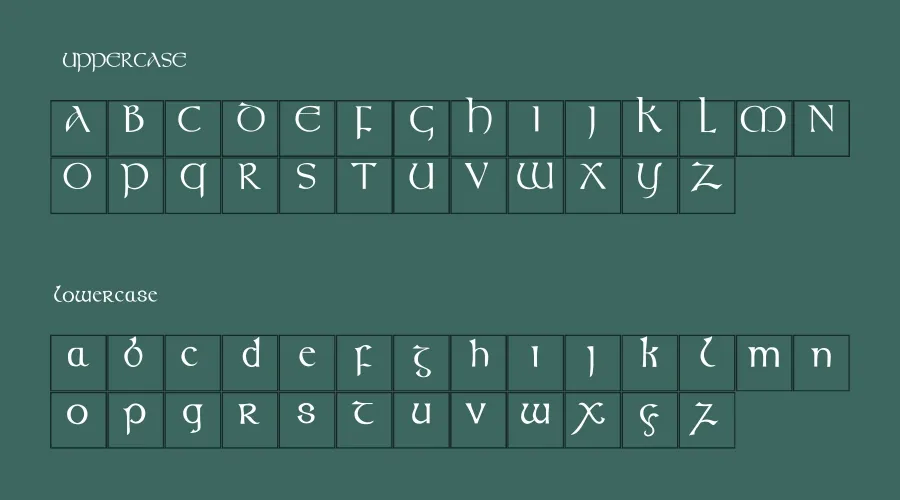
About Celtic Font
Today, Introducing to you a very elegant and eye-catching texture. The Celtic font was invented by Sam Wang and is under the category of the fancy texture family. This font has a stunning texture look appearance for visitors.
This font contains various types of characters such as uppercase letters, numerals, symbols, and many other unique structures of the alphabet set.
With its many features, the Celtic Font is perfect for a range of tasks and procedures. It may be utilized to create logos, signs, banners, social media posts, Instagram bios, and many other purposes.
It is a relaxed and unique texture that may be utilized to create greeting cards, wedding cards business cards, birthday cards, and office cards. This is simple to utilize with the Hofmann font to make a variety of tasks.
Celtic Font View
Name | Celtic Font |
Designer | Sam Wang |
Style | Fancy |
- Celtic Regular
- Celtic Bold